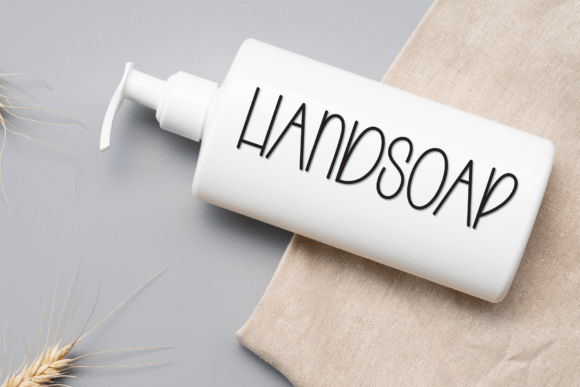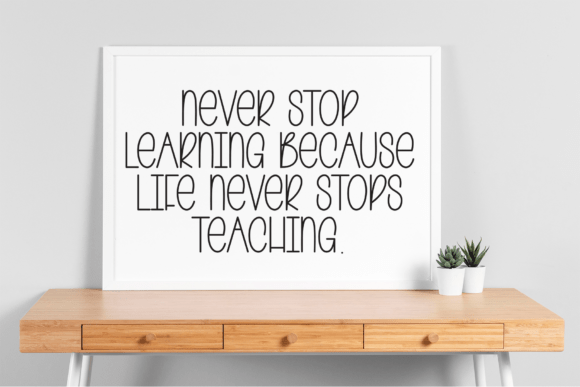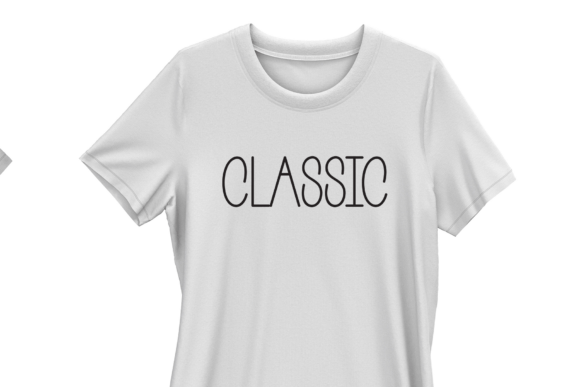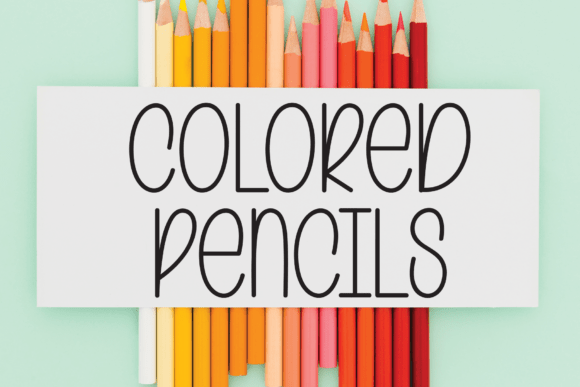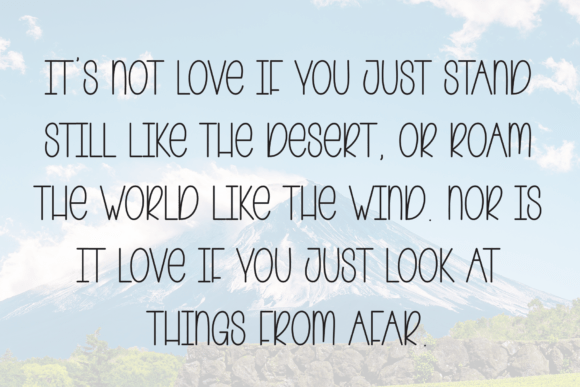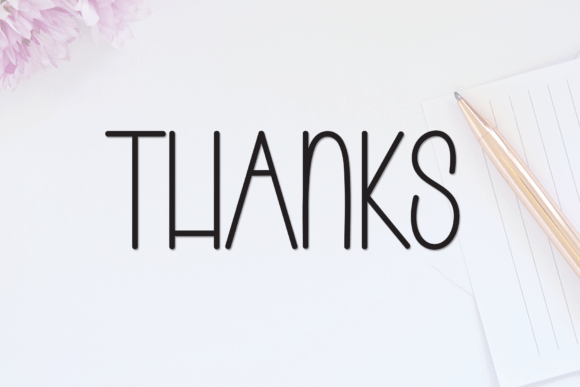
The High Notes Font: Elevating Your Designs with Elegance
Have you ever been in the middle of working on a project, and suddenly, you’re stuck on finding the perfect font? I recall a particularly frustrating moment when a client asked for a “clean and minimalist” look for their lifestyle blog, and I was determined to find a typeface that would exceed their expectations. That’s when I stumbled upon the High Notes font, and it instantly became my go-to choice.
What I Love About High Notes ✨
• ✅ The High Notes font boasts a charming, tall, and thin handwritten display typeface that adds a touch of elegance to any design.
• ✅ Its clean and minimalist look makes it perfect for contemporary designs, from digital planners to lifestyle blogs and simple greeting cards.
• ✅ The elongated letterforms and consistent line weights provide excellent legibility, even in busy layouts.
• ✅ I love how versatile it is – it works beautifully as a secondary font for body text or as a standalone headline for a chic, understated vibe.
While the High Notes font is an excellent choice for many design projects, there are a few things to keep in mind:
• 🤔 It may not be the best choice for body text in print materials, as its thin lines might not reproduce well in certain printing conditions.
• ⚠️ Be mindful of the font size, as it can become difficult to read if it’s too small.
The Story Behind High Notes
The High Notes font was designed with the intention of creating a clean and minimalist typeface that would elevate designs with its elegance. The designer aimed to craft a font that would be versatile and easy to read, making it perfect for a wide range of design projects.
Author Strongkeng Old
What is the High Notes font best suited for? The High Notes font is perfect for digital planners, lifestyle blogs, simple greeting cards, and other design projects that require a clean and minimalist look.
Can I use High Notes for body text? While High Notes can be used for body text, it’s recommended to use it as a secondary font or in larger font sizes to ensure optimal readability.